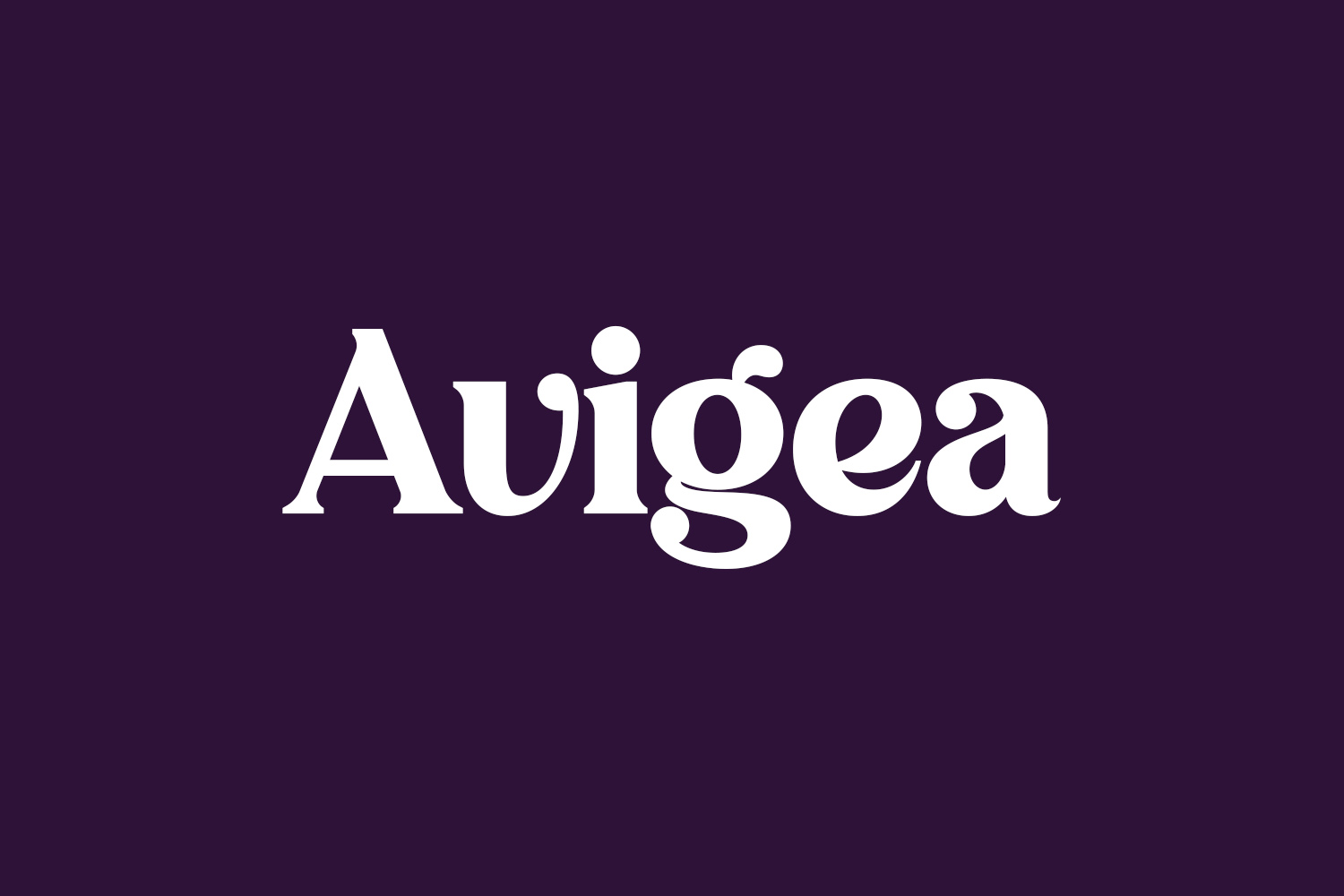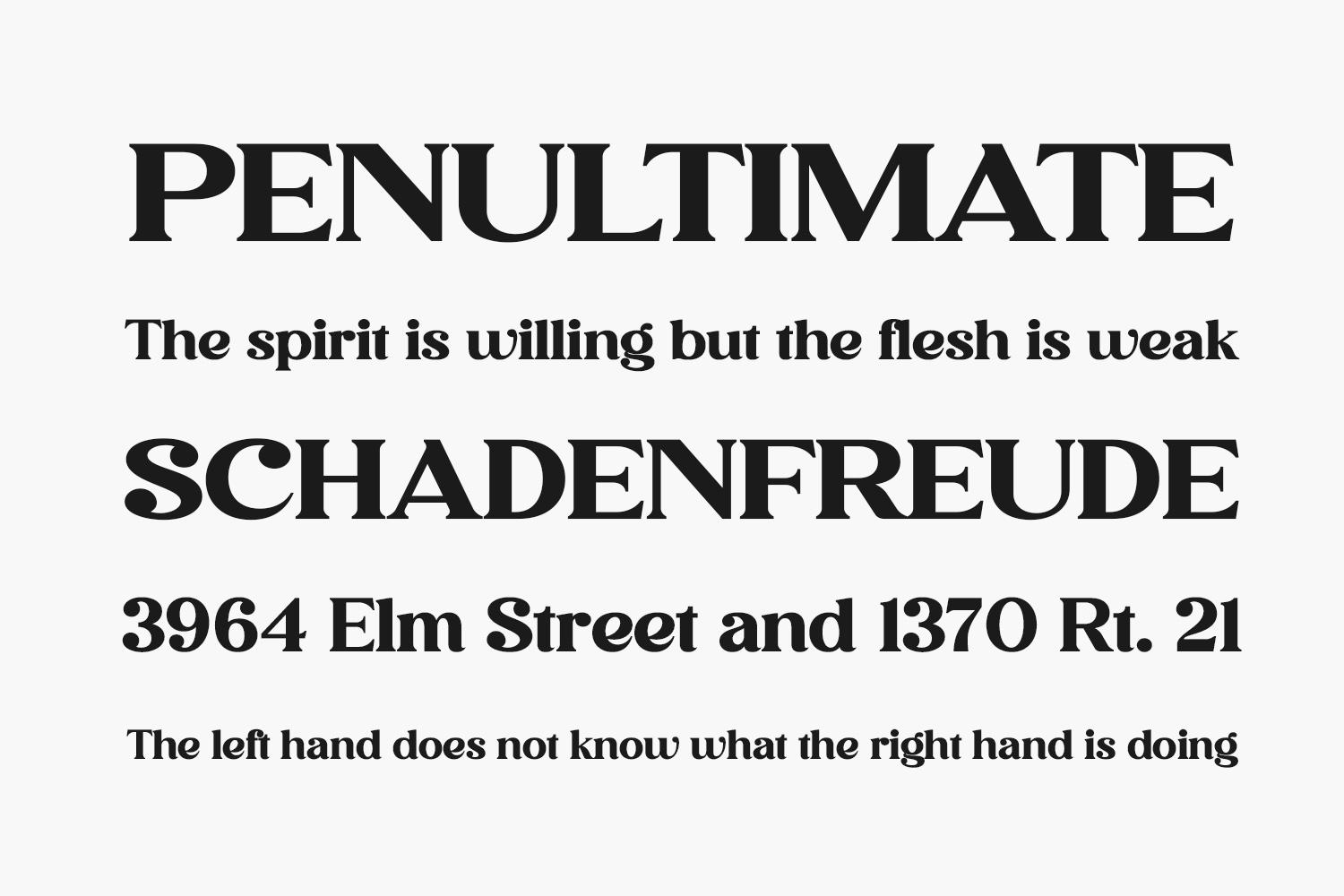
Avigea Free Font Family is an elegant and distinct serif font. It will add a luxury spark to any design project that you wish to create. Avigea Free Font Family was designed by Perspectype Studio and is free for personal use only. Please purchase the full version for commercial use.
Designed by Perspectype Studio